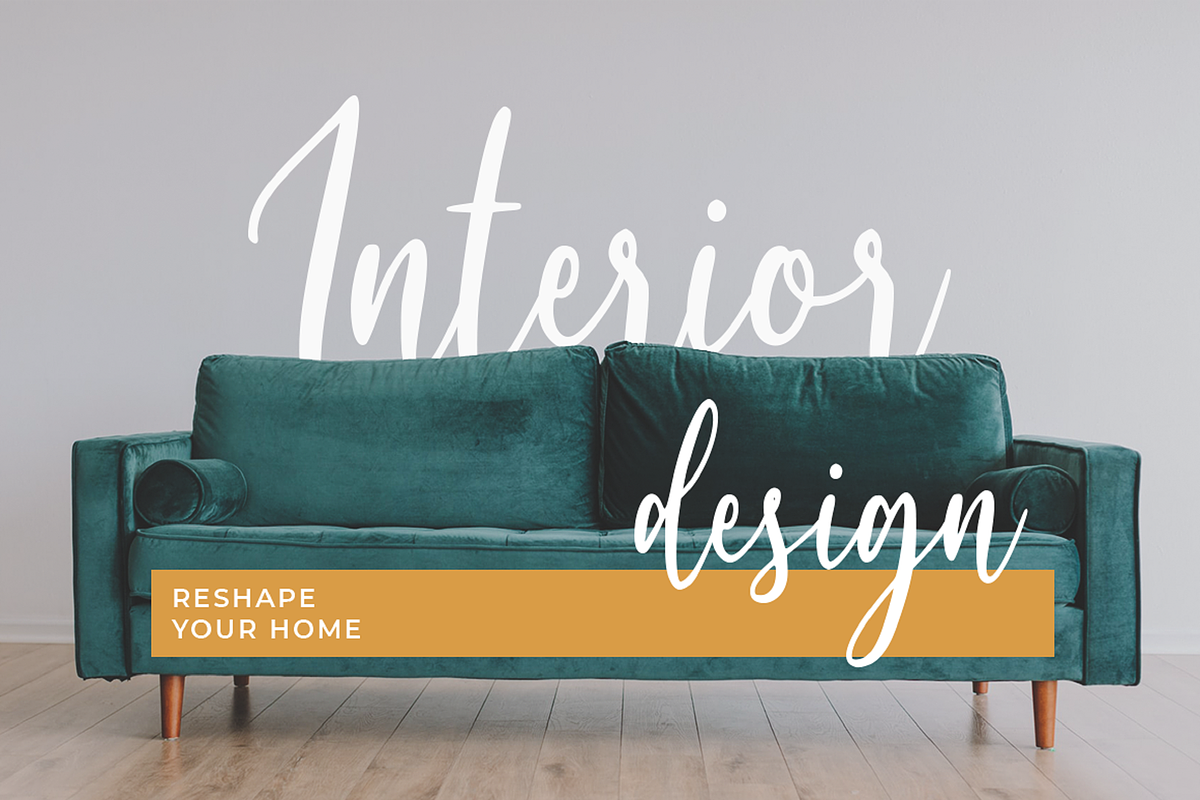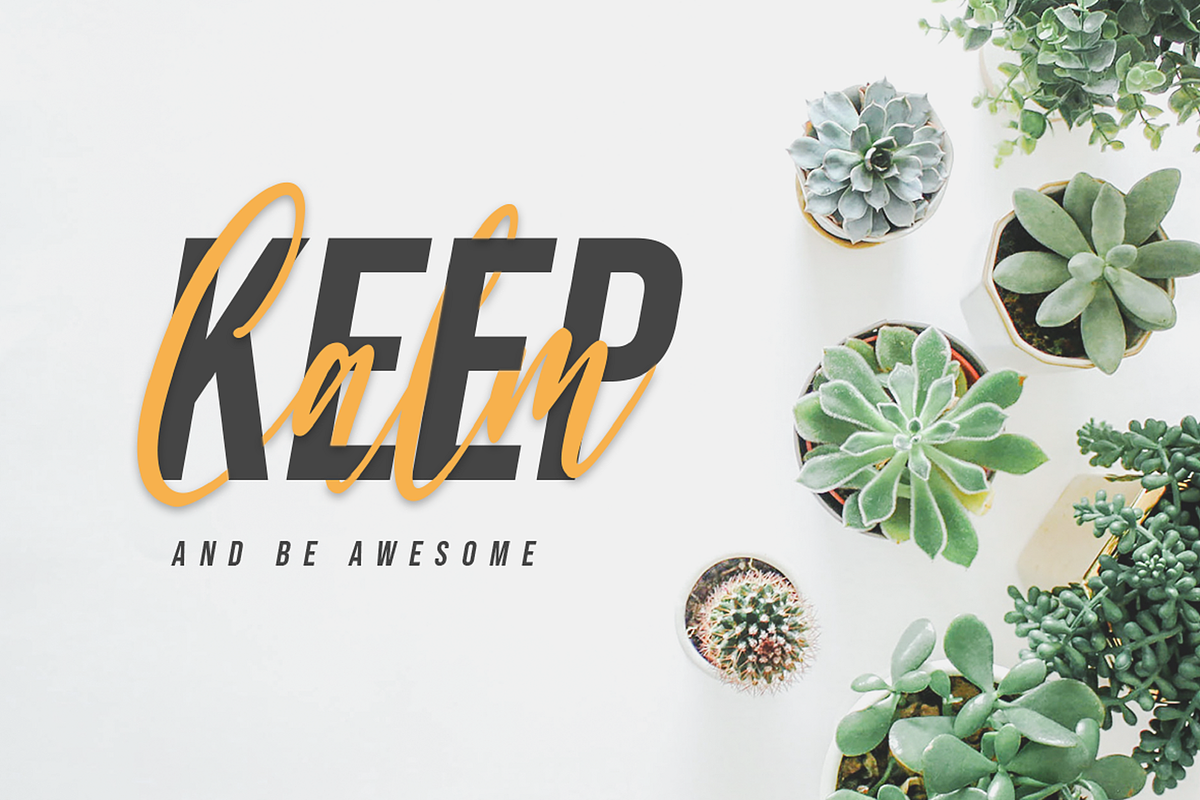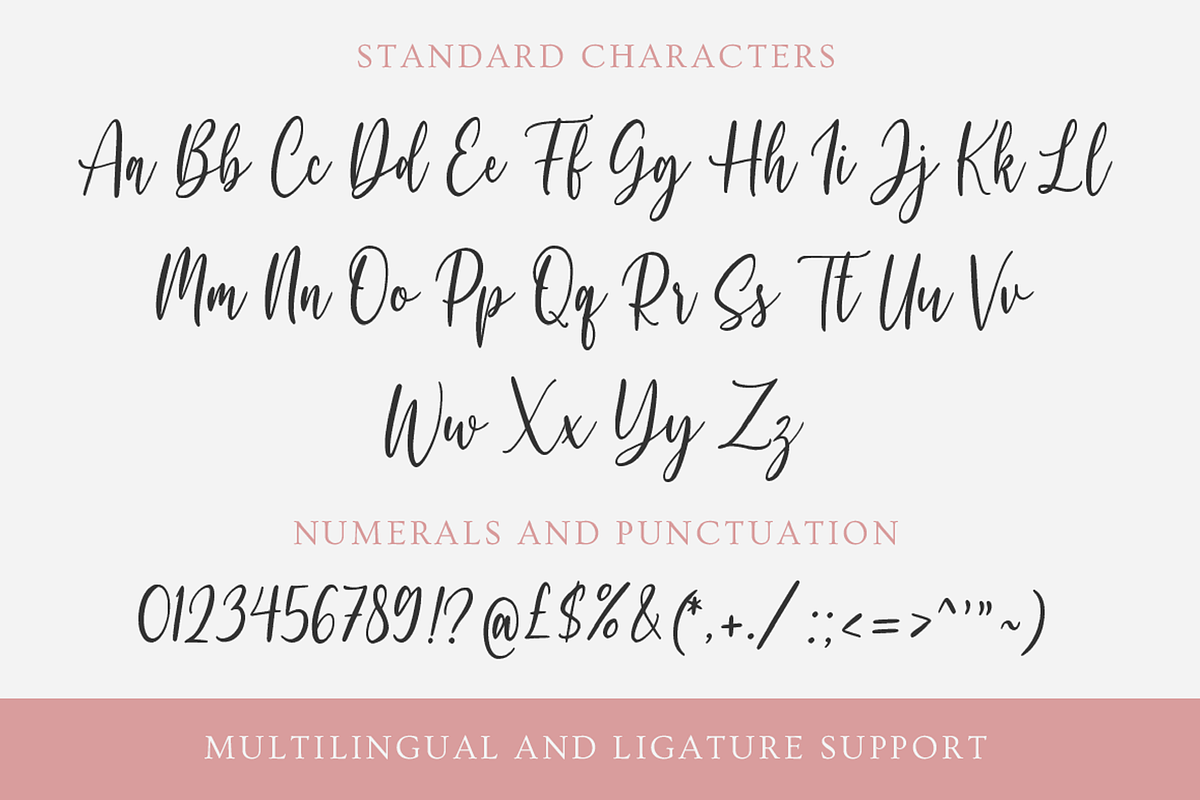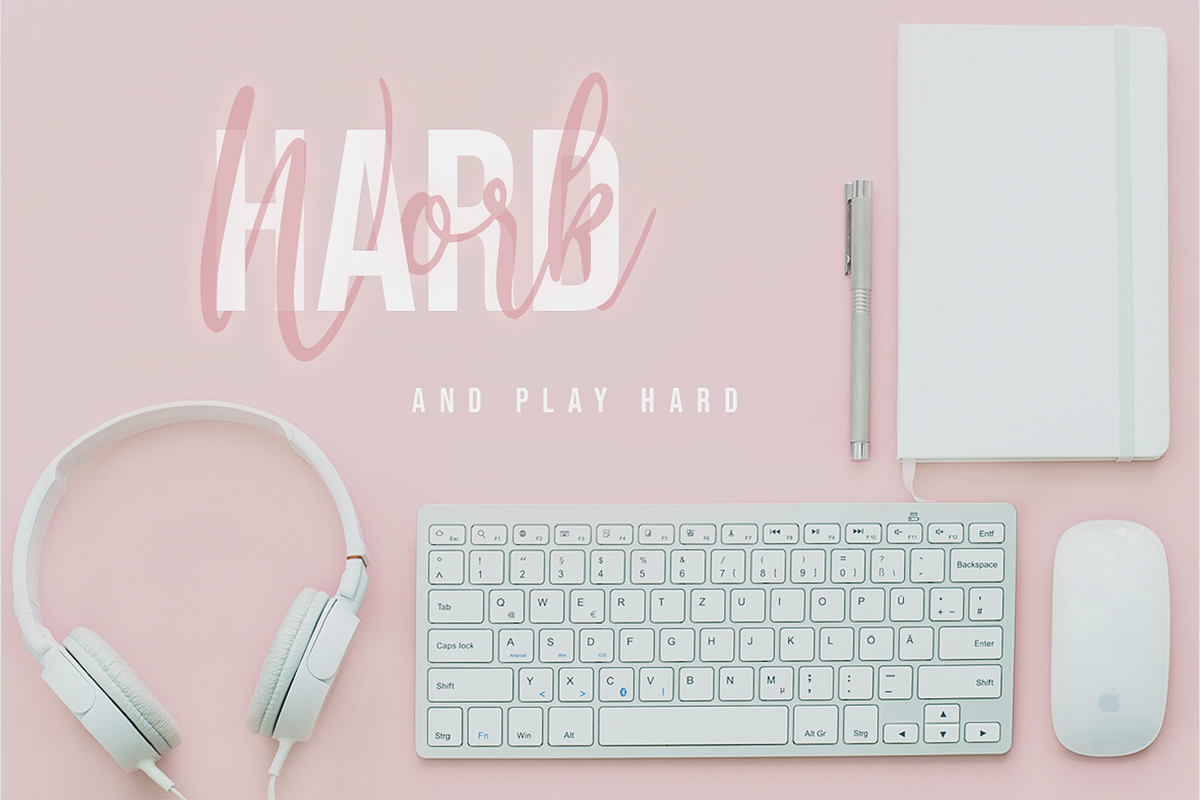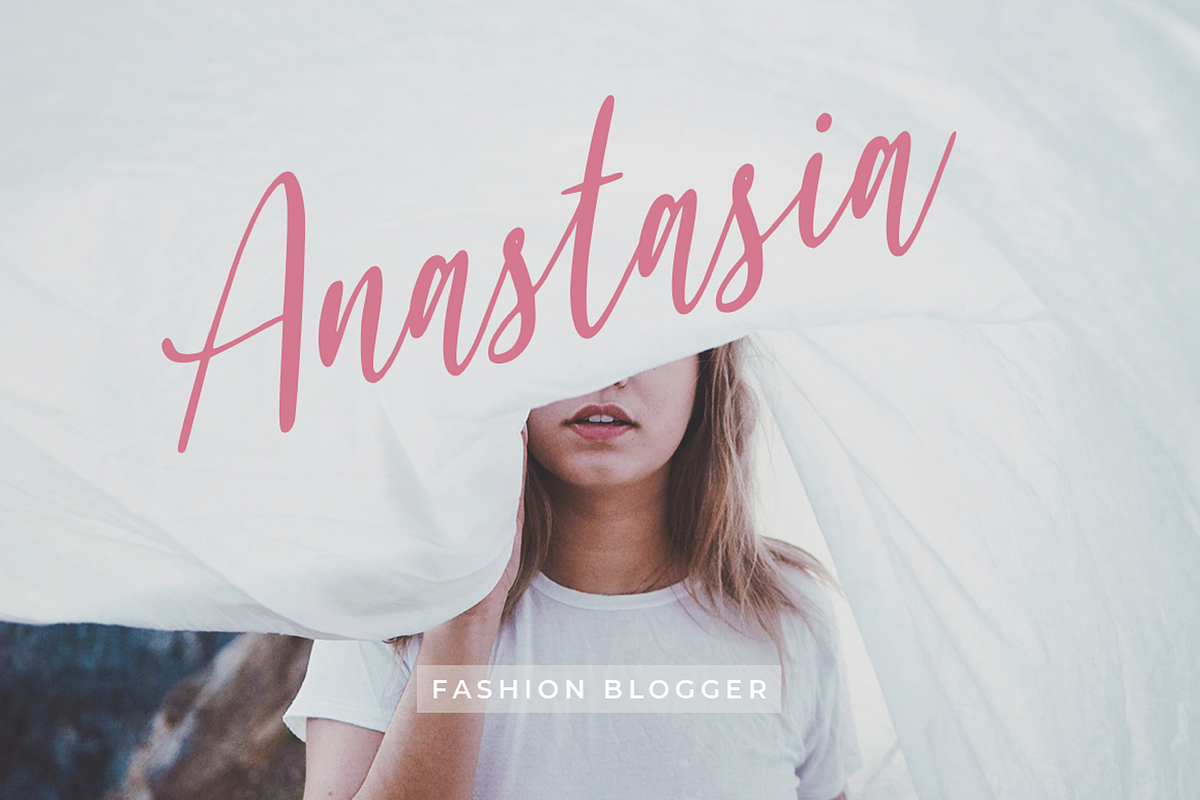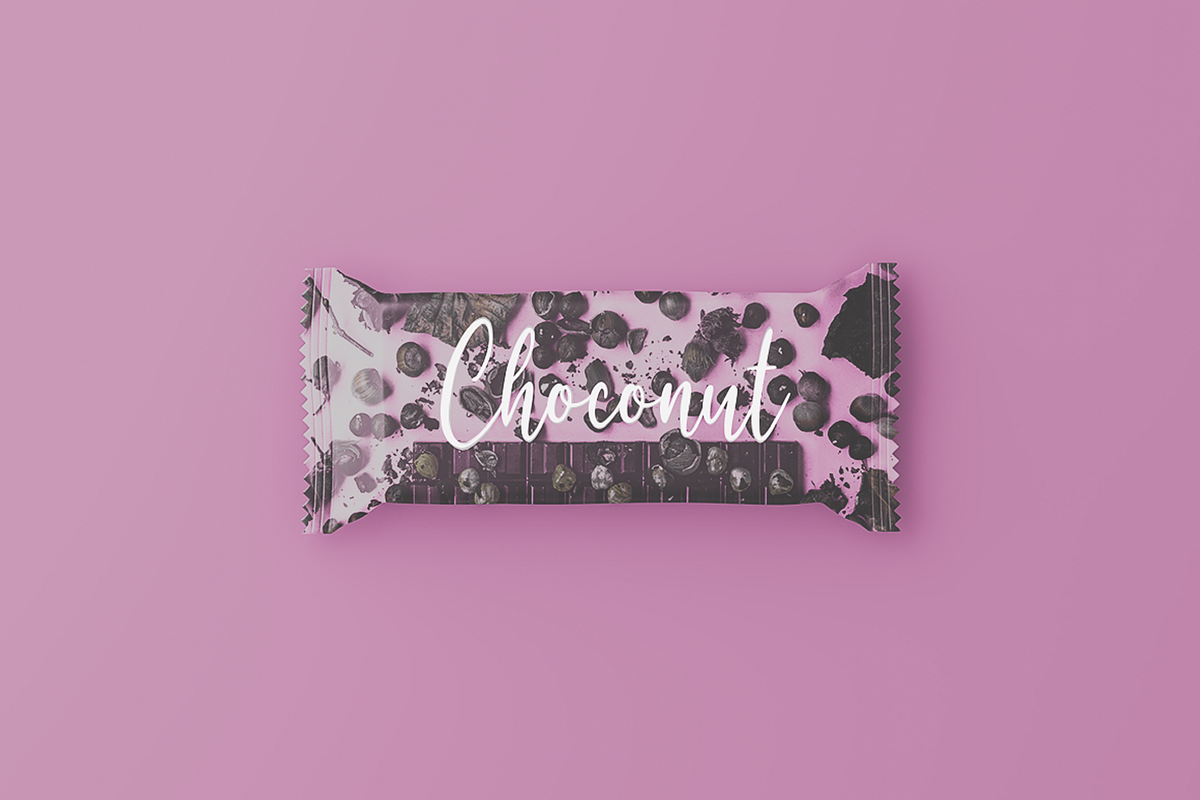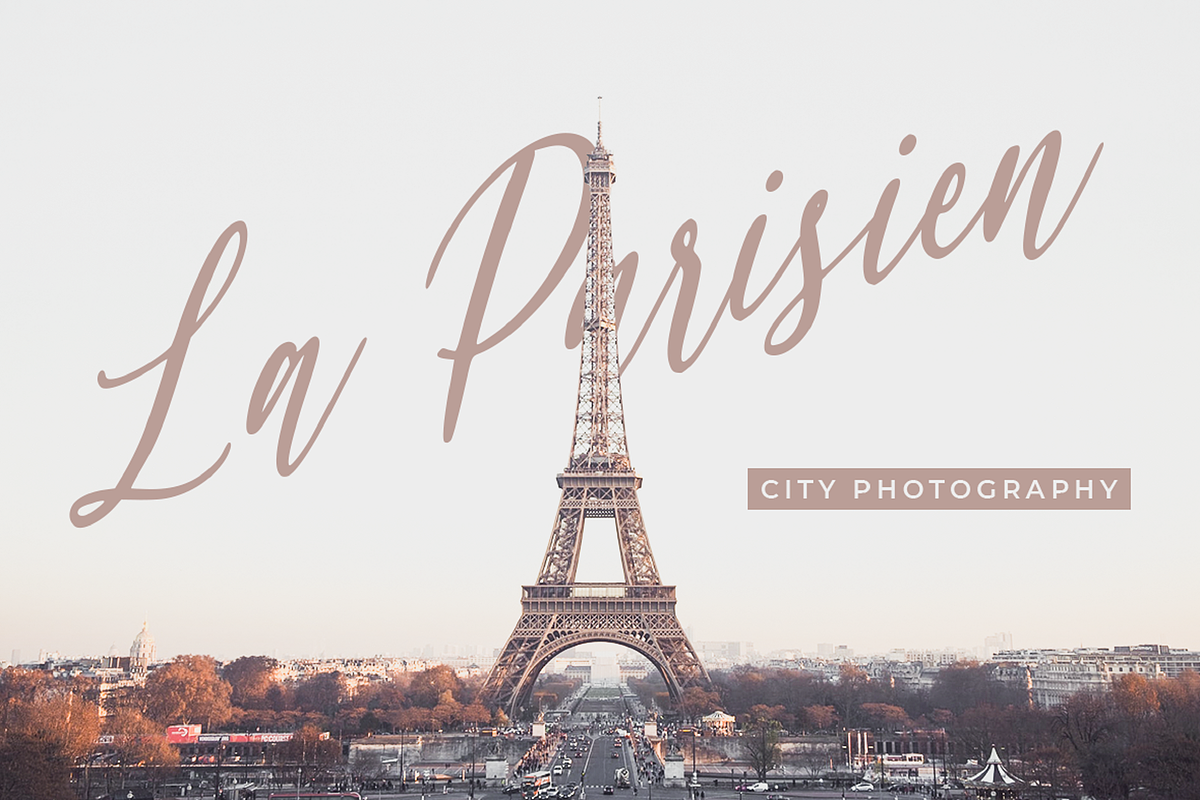
Lilium Star - Handwritten Font
“The modest Rose puts forth a Thorn. The humble Sheep a threat’ning Horn. While Lily white shall in love delight. Nor a Thorn nor a threat stain her beauty bright.”
Are you looking for a way to enhance your copy?
Introducing Lilium Star - A Modern Handwritten Font.
With every hand-drawn stroke and curve, Lilium Star will delight and add brightness, modernity and elegance to wherever it is placed. Impress your wedding guests with gorgeous invitations using Lilium Star. Why not create more engaging content and inspire your audience and clients?
This Modern Handwritten font is also perfect for headings, logos, business cards, printed quotes, cards, packaging, and your website or social media branding.
Multilingual & Ligature Support
Full sets of Punctuation and Numerals